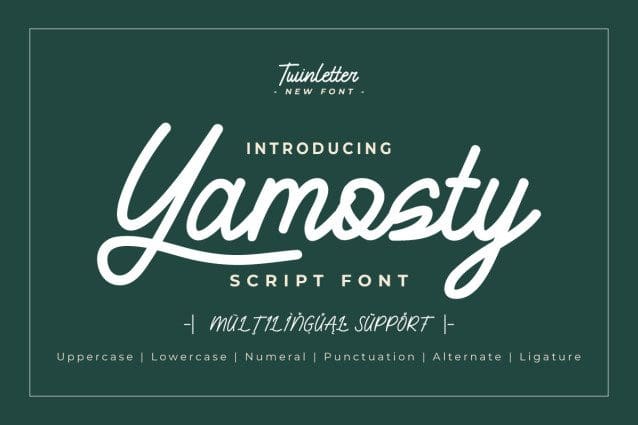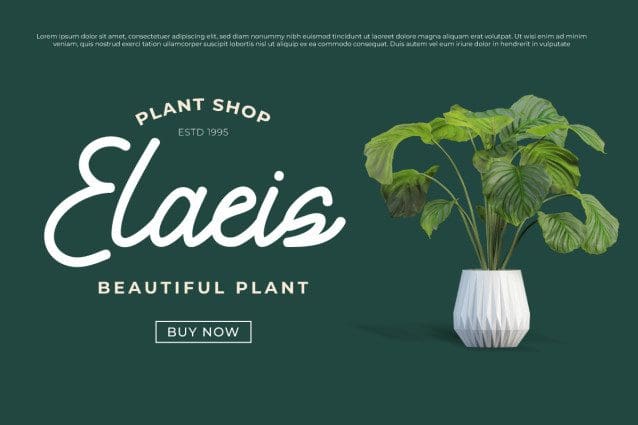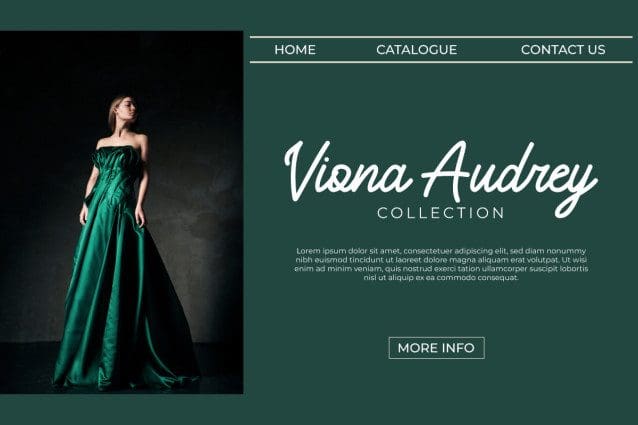
Yamosty Script Font
Yamosty Script Font is a monoline script font that is used for various design purposes such as headlines, text, T-shirts, greeting cards, and much more!